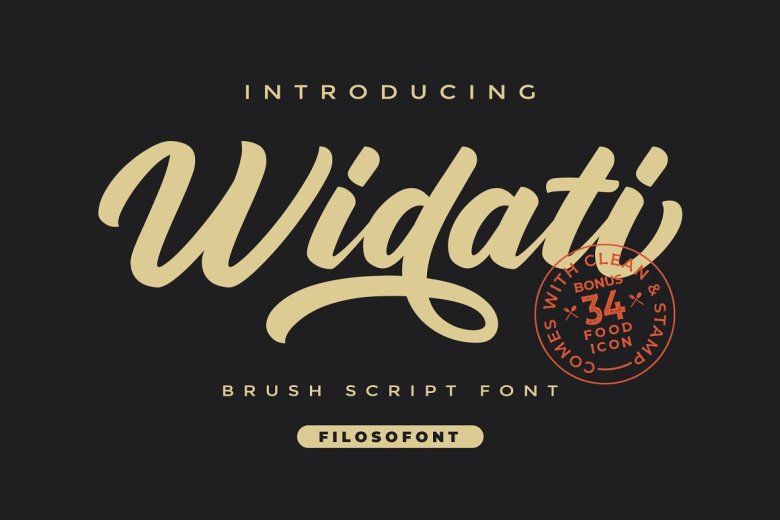
Widati Font
Introducing Widati Font is a beautiful brush script font with unique alternates. This font is created specifically for the title, and the other various formal styles, such as labels, logos, packaging, fashion, and other types of advertising hostile.
Widati Brush Script Font